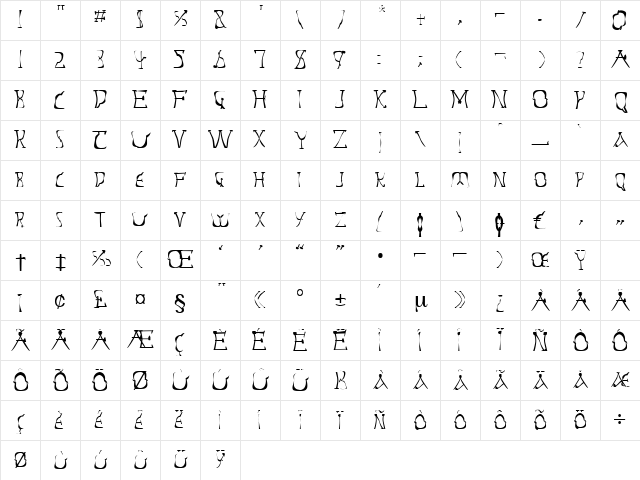
Walpurgis Regular Free Font
Walpurgis Regular
Complete Walpurgis Regular glyph index. Displaying only characters natively supported by Walpurgis Regular font.
Design Context for Walpurgis
Walpurgis is a composed and adaptable typeface that performs quietly and consistently across a wide range of design contexts.